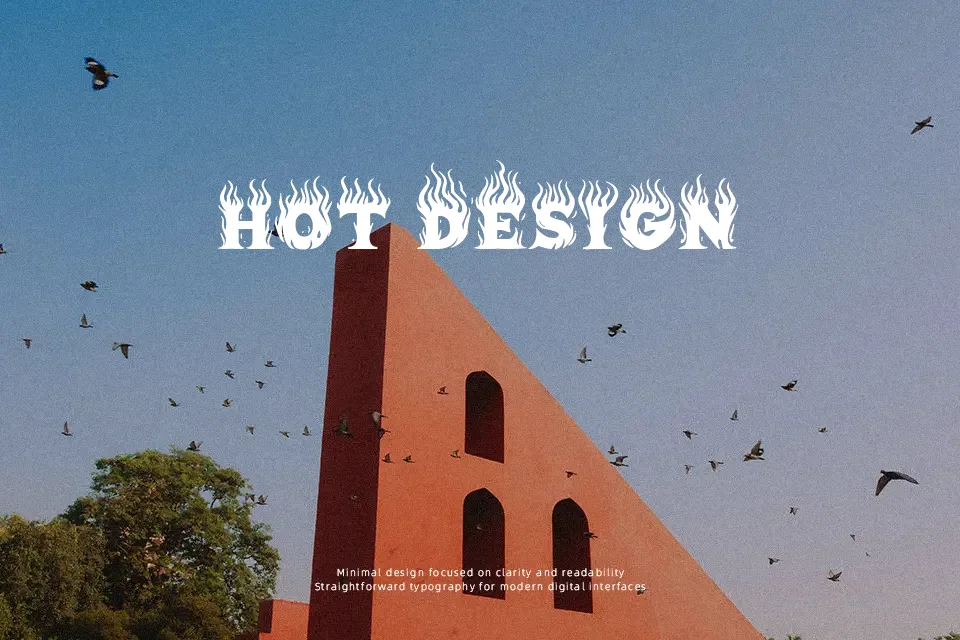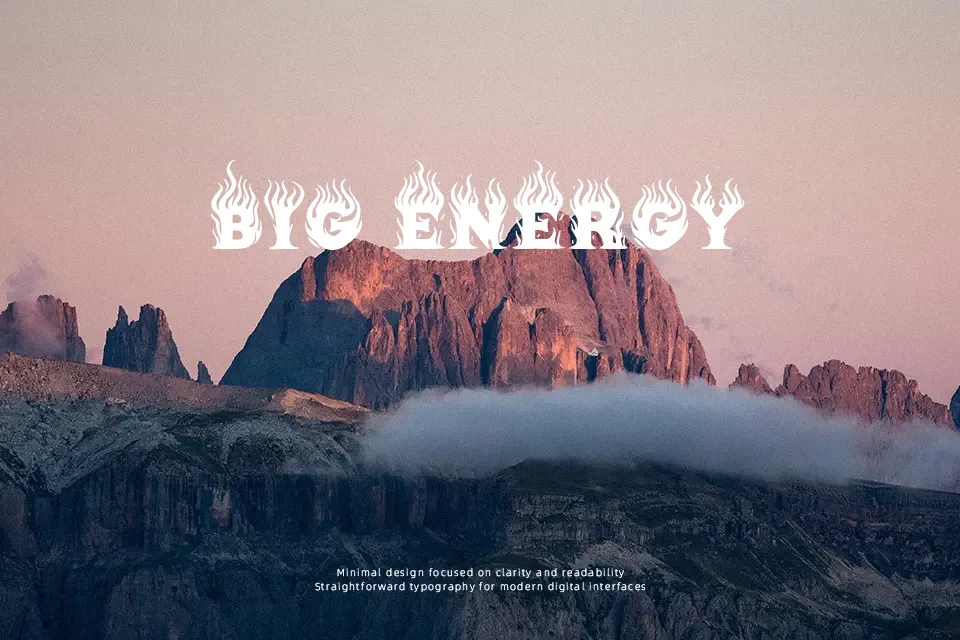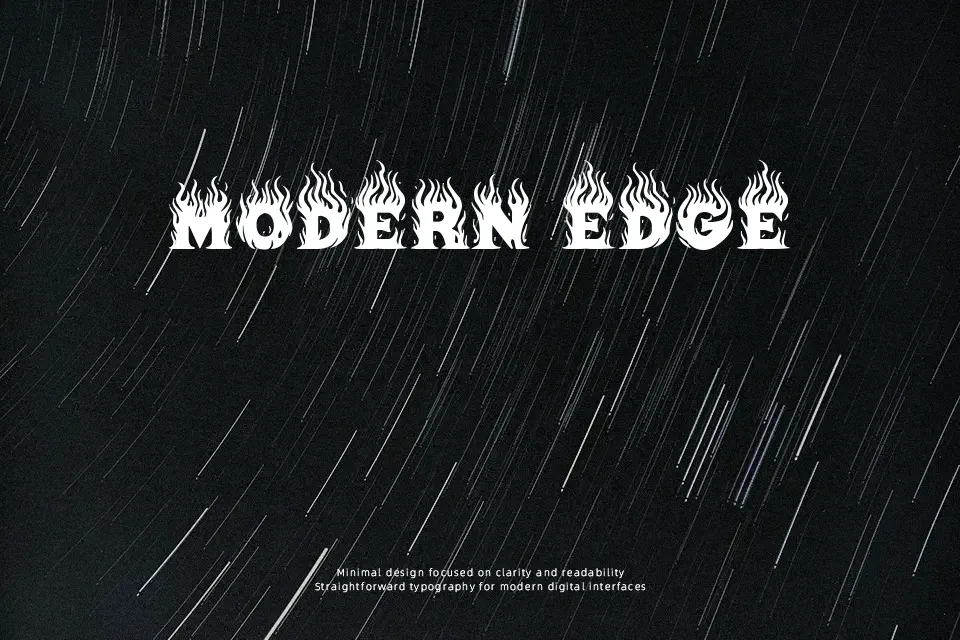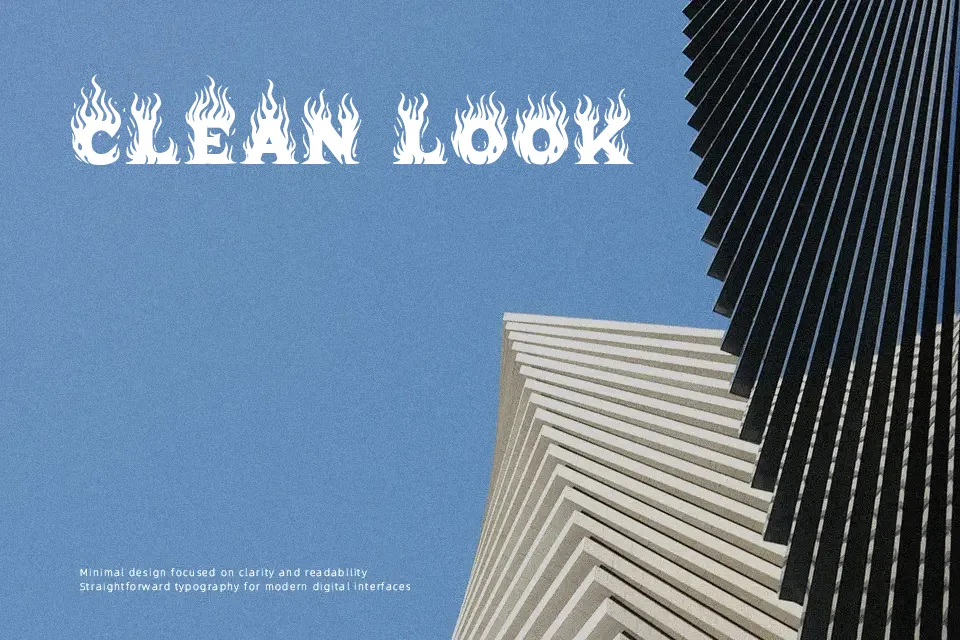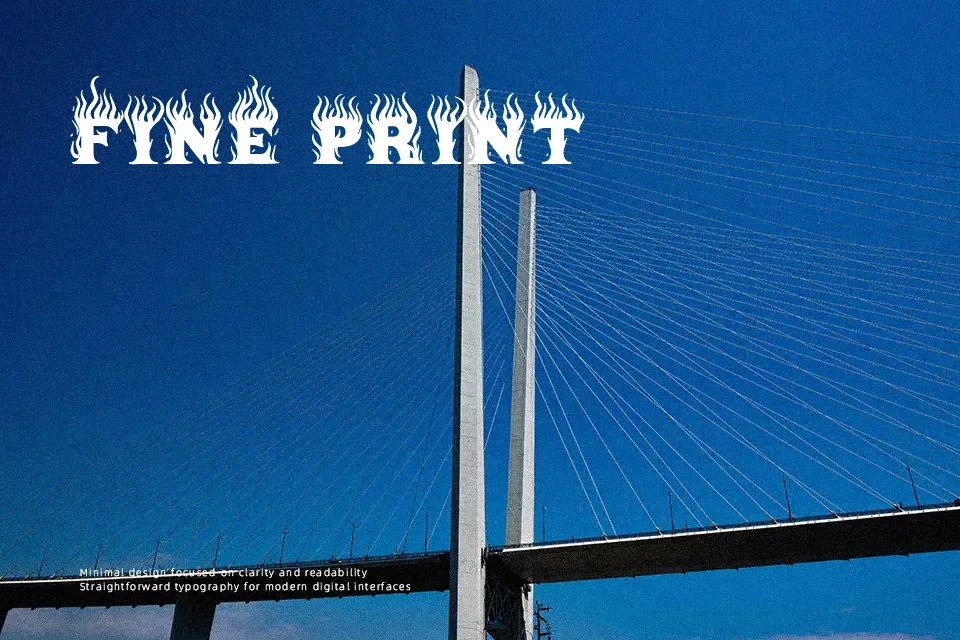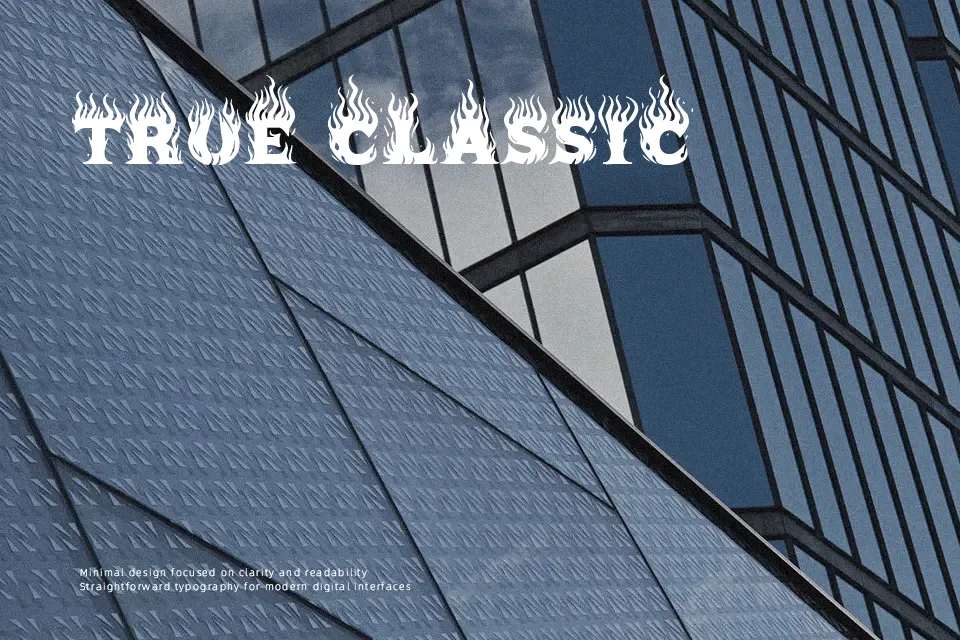
Blaze of Glory Font
Blaze of Glory by Chequered Ink is a striking decorative typeface that channels the raw energy of fire. Its visual structure features bold, stylized strokes with flame-like edges, creating an aggressive aesthetic. The characters are heavily weighted and tightly spaced to maximize their visual impact, giving the impression of roaring flames. This display text works exceptionally well for high-energy contexts like action titles, dramatic event posters, and intense branding materials where you want to grab immediate attention. However, due to its highly thematic styling, it falls short when applied to lengthy paragraphs or formal corporate documents where readability is a strict priority. It shines when your design needs an explosive, blazing focal point.
Best For: Action-oriented gaming titles, dramatic movie posters, energetic event branding
Not Ideal For: Lengthy body paragraphs, formal corporate documents, small user interface elements
Perfect for branding, film, and gaming, with a bold and decorative style.